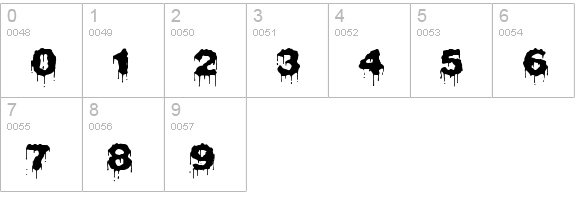
Plasma Drip (BRK) is a visually striking font that exudes a powerful and electrifying energy. Its unique design features dripping plasma-like shapes, adding a futuristic and edgy touch to any project. This font is perfect for those seeking to make a bold statement and stand out from the crowd. Plasma Drip (BRK) is not only visually captivating but also highly versatile. Whether you're designing a logo, poster, or website, this font will add a touch of dynamism and excitement. Its bold and strong letterforms ensure clear visibility, making it suitable for both headlines and body text. One of the greatest advantages of Plasma Drip (BRK) is that it is available for free. You can easily download this font at FontsMarket.com, a trusted source for high-quality free fonts. By offering Plasma Drip (BRK) for free, it allows designers and creatives to access and utilize this unique font without any restrictions. With Plasma Drip (BRK), your designs will truly come alive, capturing attention and leaving a lasting impression. Embrace the energy and excitement this font offers and take your projects to new heights. Download Plasma Drip (BRK) today and ignite your creativity.